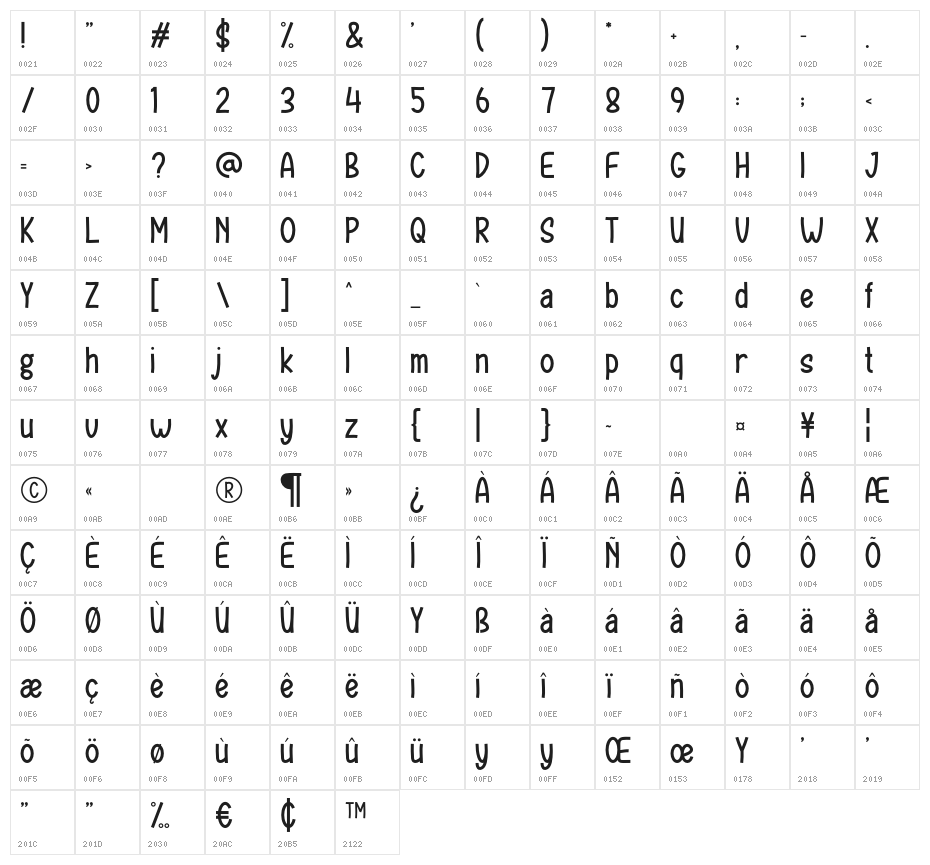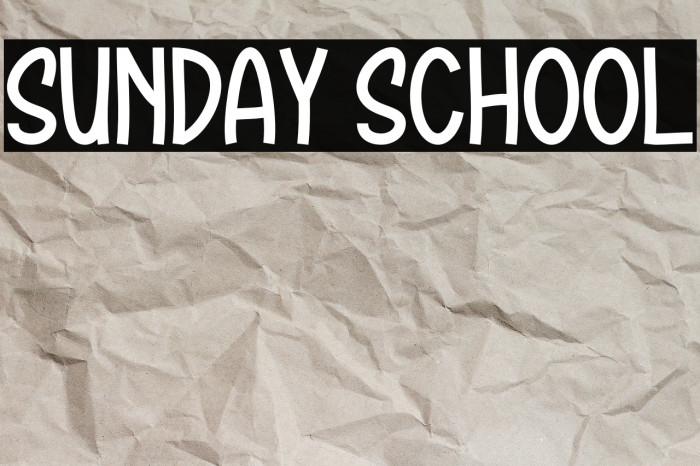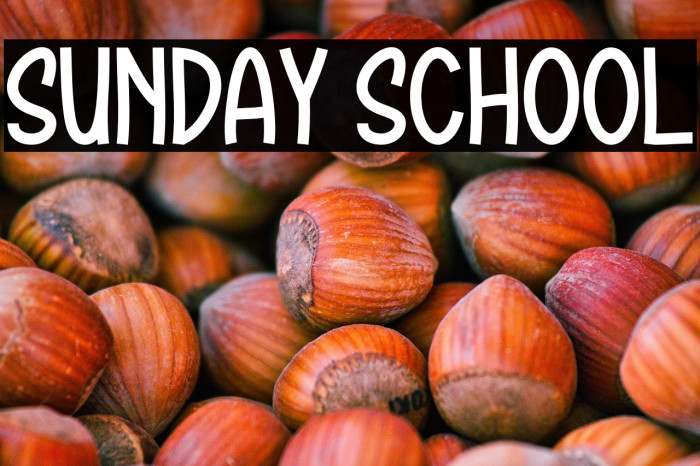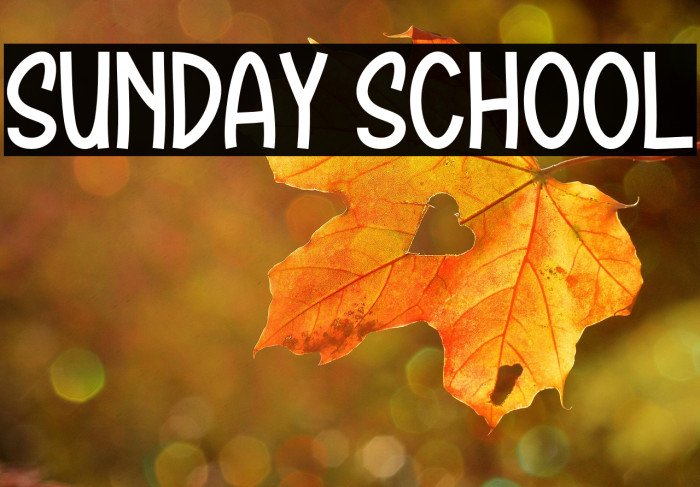
SUNDAY SCHOOL Font
This playful and whimsical font features a hand-drawn aesthetic with a casual, friendly vibe. The letters are slightly irregular, giving it a charming and approachable feel. The uppercase and lowercase characters maintain a consistent style, with rounded edges and a slight tilt, adding to its informal appearance. The numerals and special characters follow the same design principles, ensuring a cohesive look across all text. This font is perfect for projects that require a fun and lighthearted touch.
| Proposed Projects | Ideal for children's books, educational materials, greeting cards, and playful branding. |